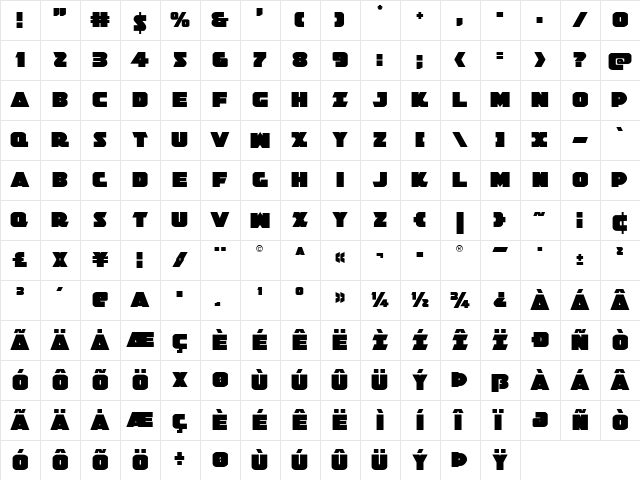
Jedi Special Forces Regular
Design Context for Jedi Special Forces Typeface
Jedi Special Forces has the bold swagger of sports branding: strong, assertive letterforms designed to dominate headlines and jerseys alike.
Built for sports team identities, athletic apparel, event posters, and high-energy promotional material.
Pro Tip: Jedi Special Forces thrives on contrast — try it large, bold, and tight against a clean background for maximum visual impact.